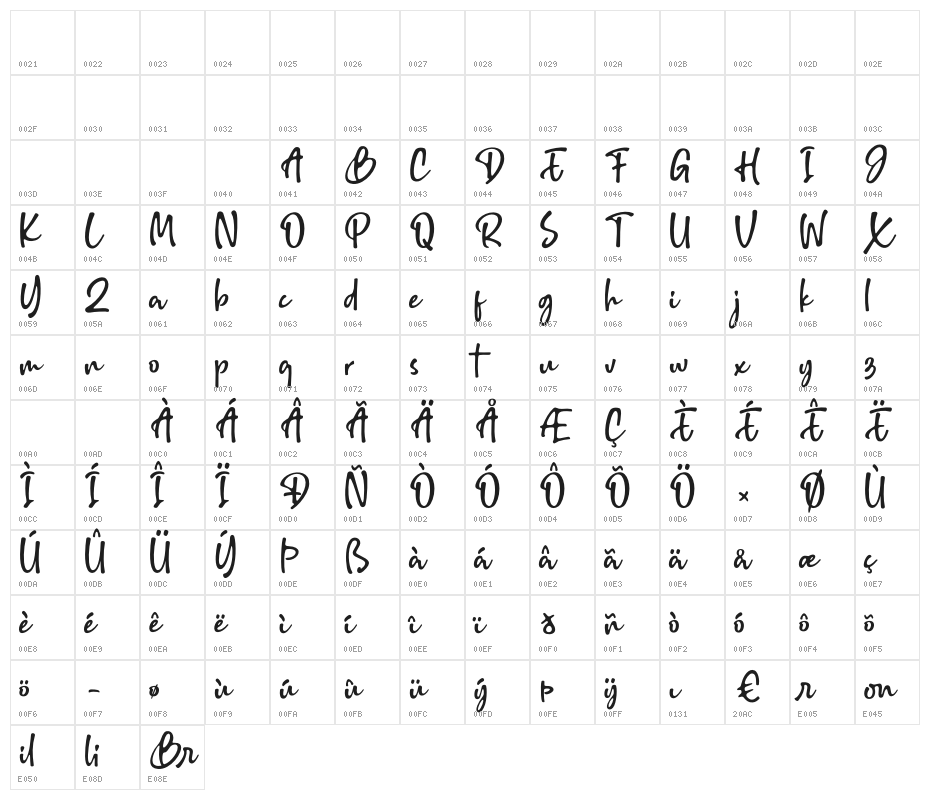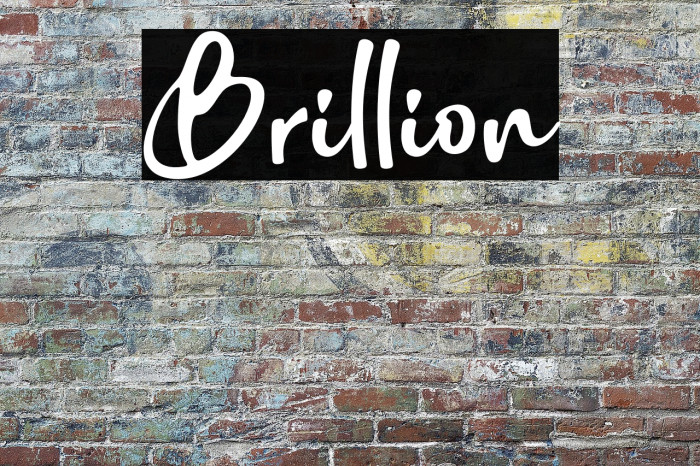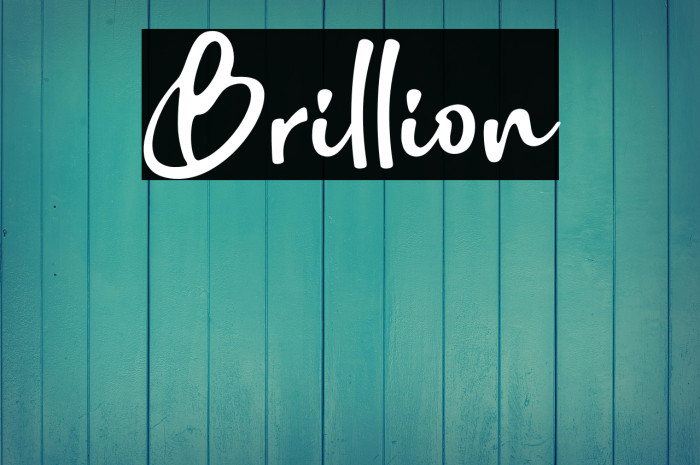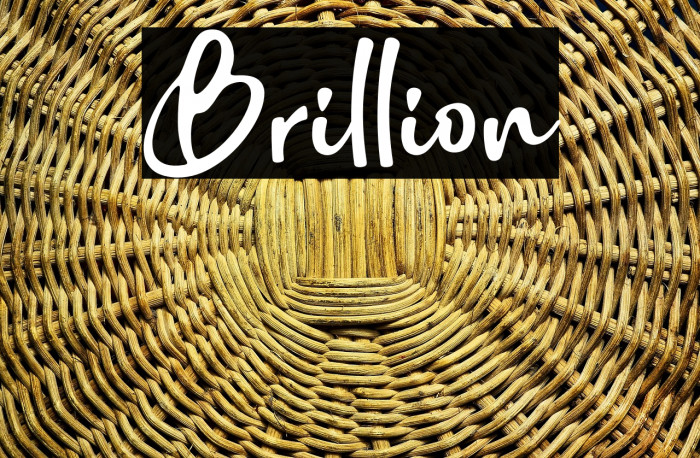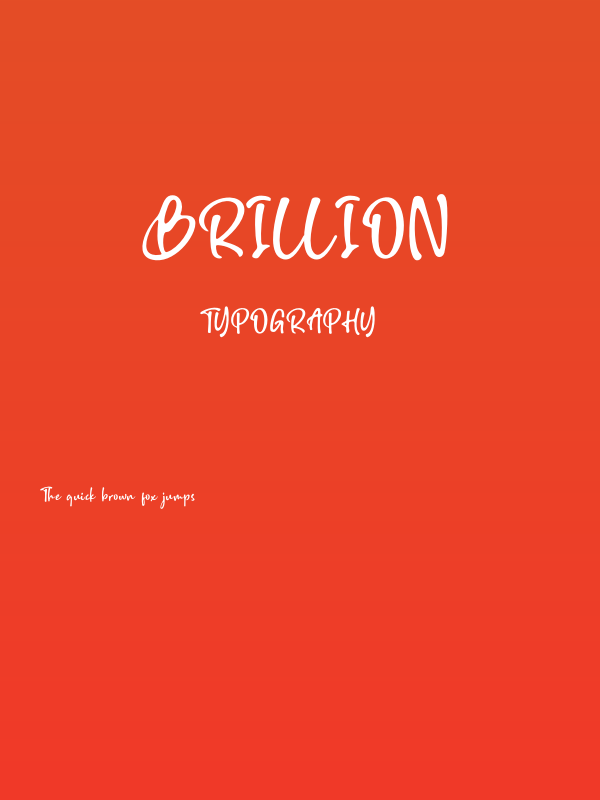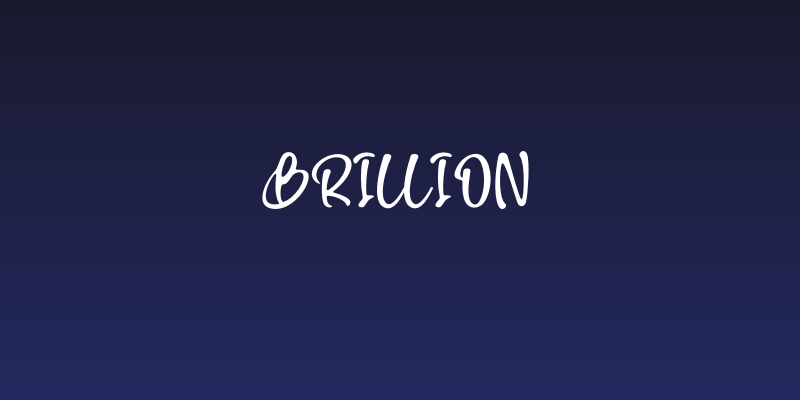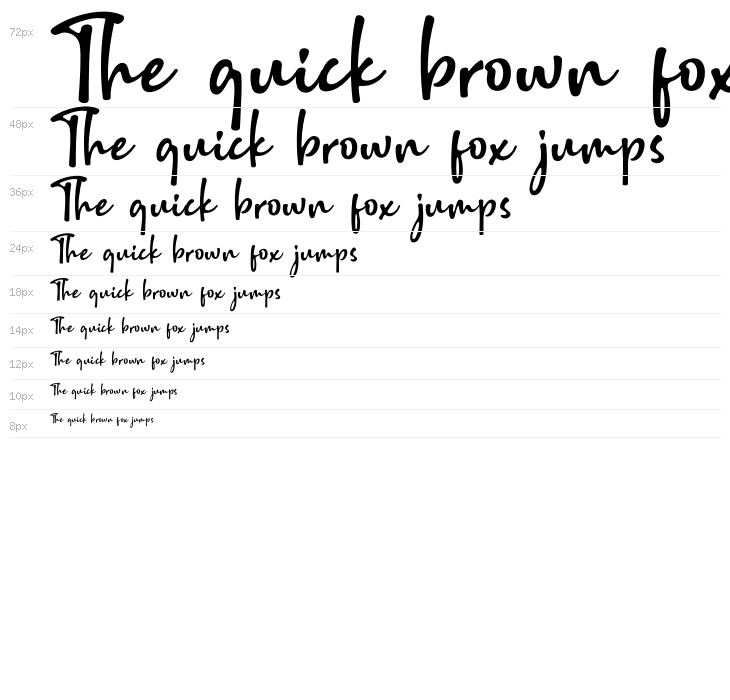
Brillion Font
Brillion Description
This font features a bold, handwritten style with a playful and energetic character. The letters are connected in a fluid manner, giving it a natural and organic feel. The uppercase and lowercase letters maintain a consistent flow, with rounded edges and varying stroke widths that add to its dynamic appearance. The numbers and special characters are designed to match the overall aesthetic, making it versatile for various design needs. The font's casual yet stylish look makes it suitable for projects that require a personal touch.
| Use Case | Logos, Headlines, Invitations |
| Proposed Projects | Ideal for branding, invitations, greeting cards, and social media graphics. |